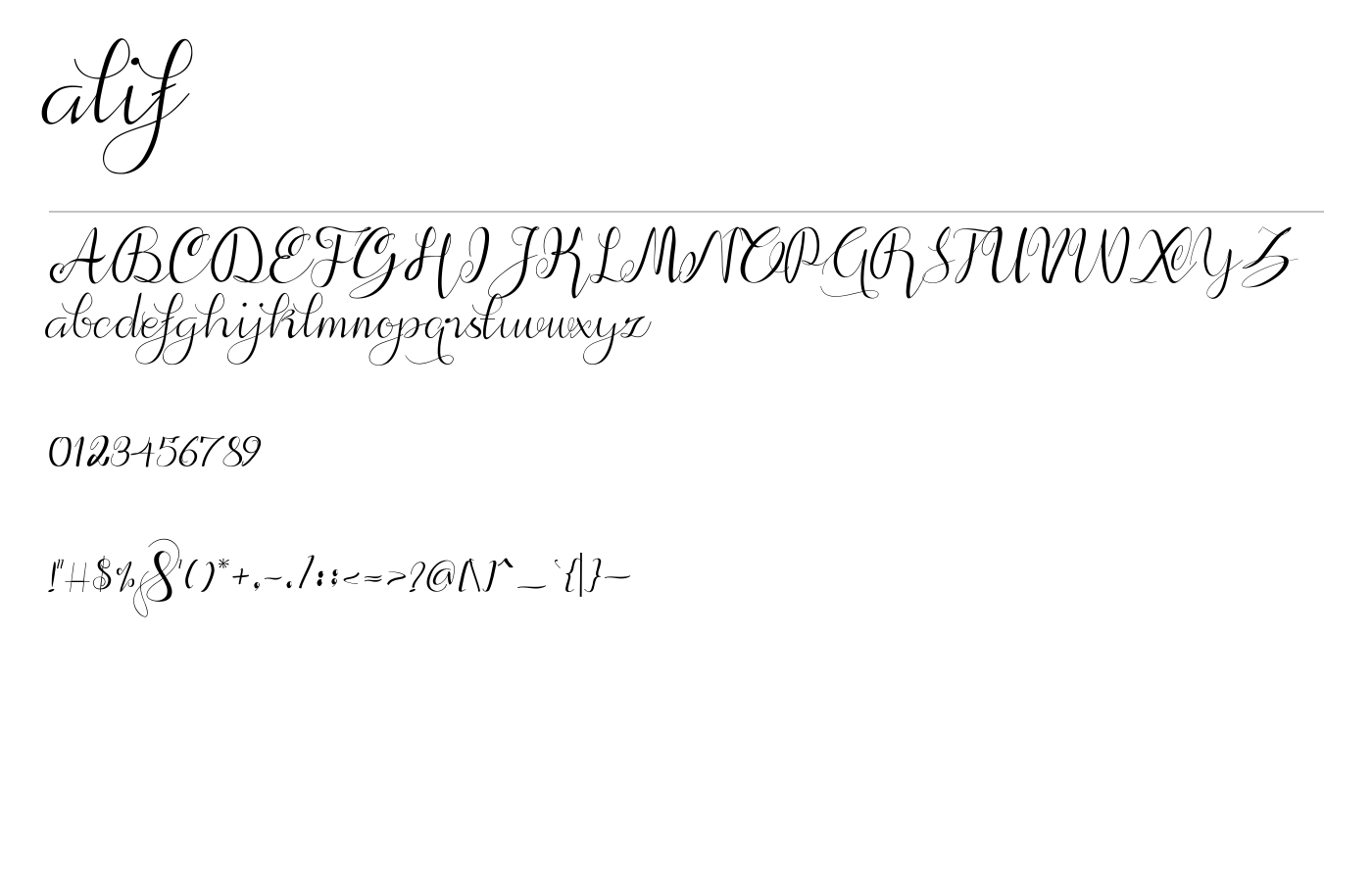
Alif is an elegant script font characterized by its graceful, flowing strokes and refined calligraphic style. Its delicate, high-contrast lines and elaborate swashes create a sophisticated and luxurious feel, making it ideal for upscale branding, invitations, and artistic projects that require a touch of elegance and charm. This font shines best in decorative headlines or logos where its intricate details can stand out beautifully.
alif Font
About alif Font